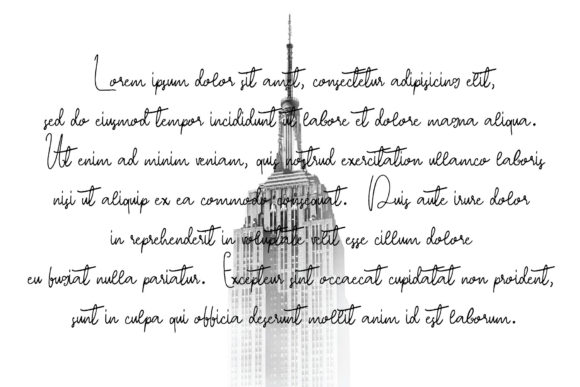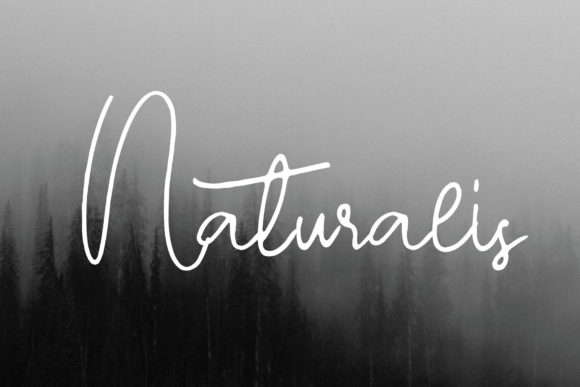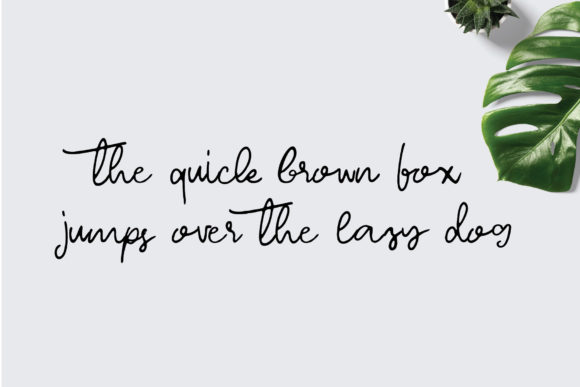
Steias Font
About Steias Font
Steias is a raw and natural script font that will add a touch of authenticity to any design. Get inspired by its elegant charm!